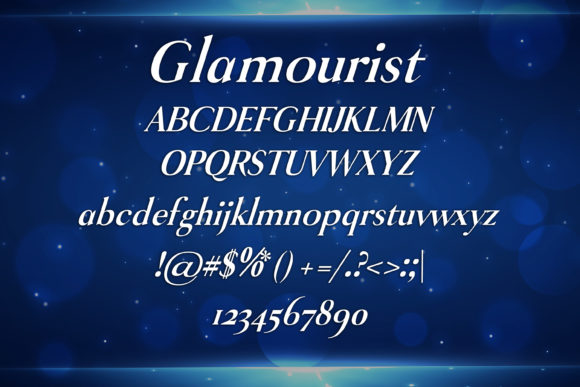
The Glamourist Font: Elevate Your Designs with Elegance
I’ll never forget the design project that made me fall in love with the Glamourist font. I was working on a branding project for a high-end boutique, and I needed a font that exuded sophistication and elegance. After hours of scouring font libraries and testing various options, I stumbled upon Glamourist. Its clean lines, smart aesthetic, and traditional sign-painting inspiration instantly won me over. In this article, I’ll share my experience with Glamourist, its features, and how to make the most of it in your designs.
- ✨ Super clean and smart design that’s perfect for modern projects
- 💫 Beautifully crafted serif details that add a touch of elegance
- 🎨 Versatile and suitable for a wide range of design applications
While Glamourist is an exceptional font, there are a few minor quirks to be aware of:
- 🤔 Some users may find the font’s x-height a tad too high, which can affect its suitability for certain design contexts
- ⚠️ Limited availability of condensed or expanded styles, which might limit its use in certain layouts
Glamourist was inspired by traditional sign painting, with its creator aiming to capture the essence of hand-painted signs. The font’s clean lines and serif details evoke a sense of nostalgia while remaining modern and versatile.
Q: What makes Glamourist suitable for modern designs?
A: Glamourist’s clean and smart aesthetic, combined with its elegant serif details, makes it an excellent choice for modern designs.
Q: Does Glamourist support OpenType features?
A: Yes, Glamourist includes OpenType features, such as stylistic alternates and glyphs, which can enhance your designs.
Q: Is Glamourist suitable for body text?
A: While Glamourist is highly legible, its elegant serif details make it more suitable for headings, titles, and captions. For body text, a sans-serif font might be more suitable.